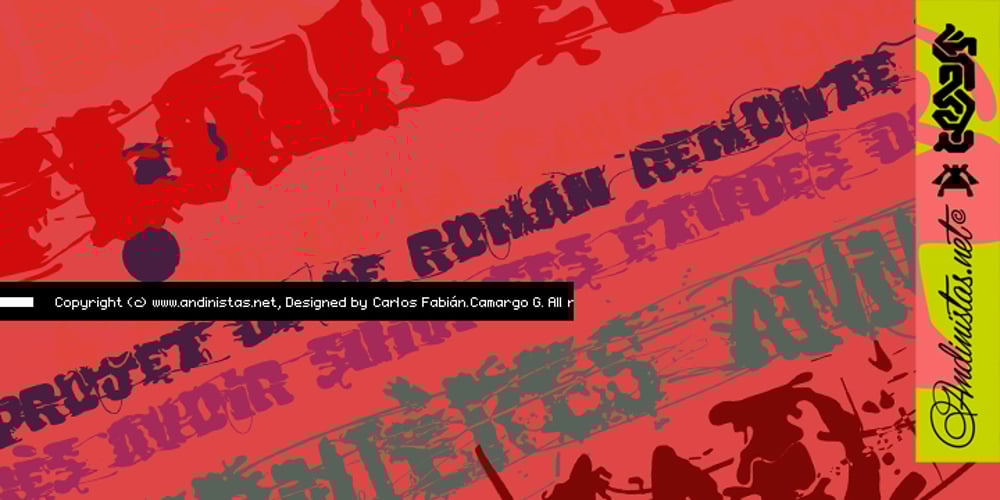
Diad Font Family was designed by Carlos Fabián Camargo Guerrero and published by Andinistas. Diad contains 2 styles and family package options. Diad was born on 2000 in order to design posters about second World War. The original idea was obtained by breaking, burning and getting wet a bunch of written copies with an old writing machine. Today, Diad is a small typographic system useful for bringing relevance to any content with a grunge look. Each and every detail passed through a strict experimentation process. Its outrageous and unconventional spirit travels from high leveled corrosion, up to a delicate visual neglect. Diad 2 and 3 work for designing words. Diad 1 is ideal for long phrases and titles. Diad dingbats includes 26 illustrations about motocross. In total, adding Diad 1,2 and 3, it has around 260 glyphs. Diad will make your design shine providing different graphic atmospheres, optimizing time and work to its users. Diad is perfect for graphic design on contexts such as death metal, drum and bass, films, war and horror video games. It could work also for logos, words, titles and short texts in covers, tags, clothes, wraps, cards, stickers, toys, bicycles, surf boards, etc.